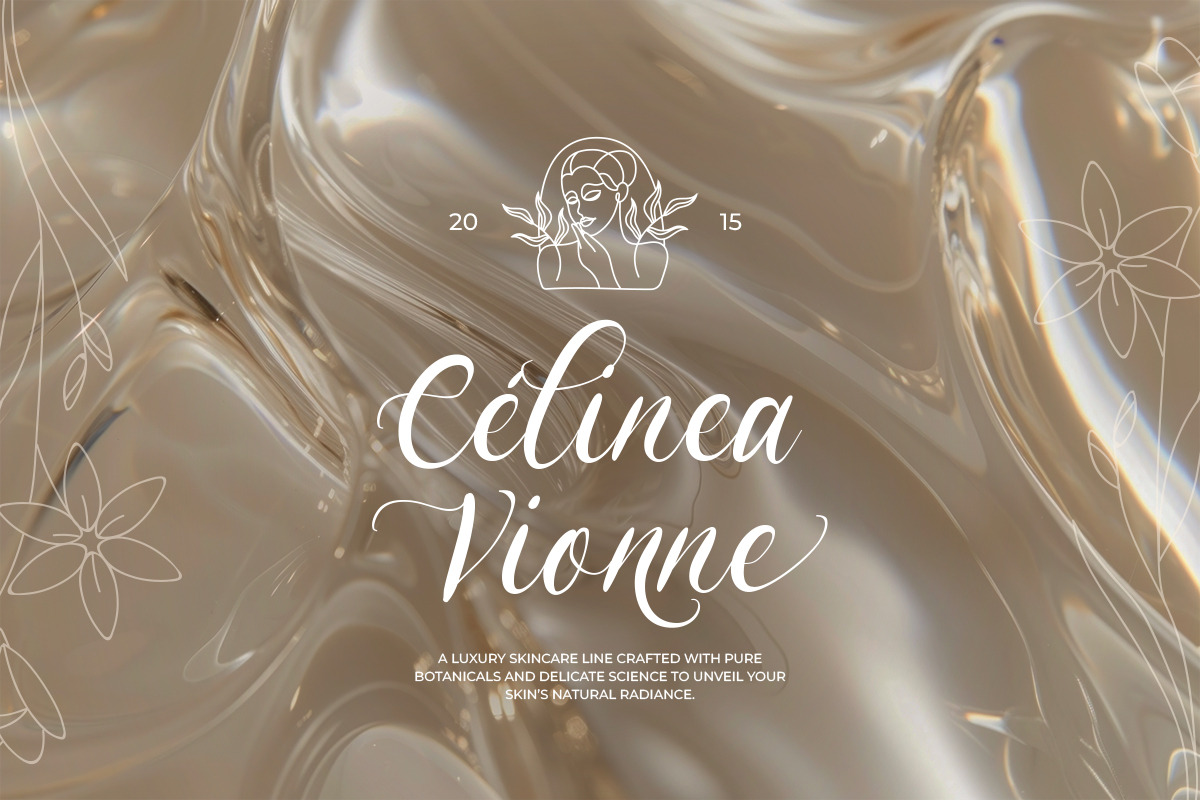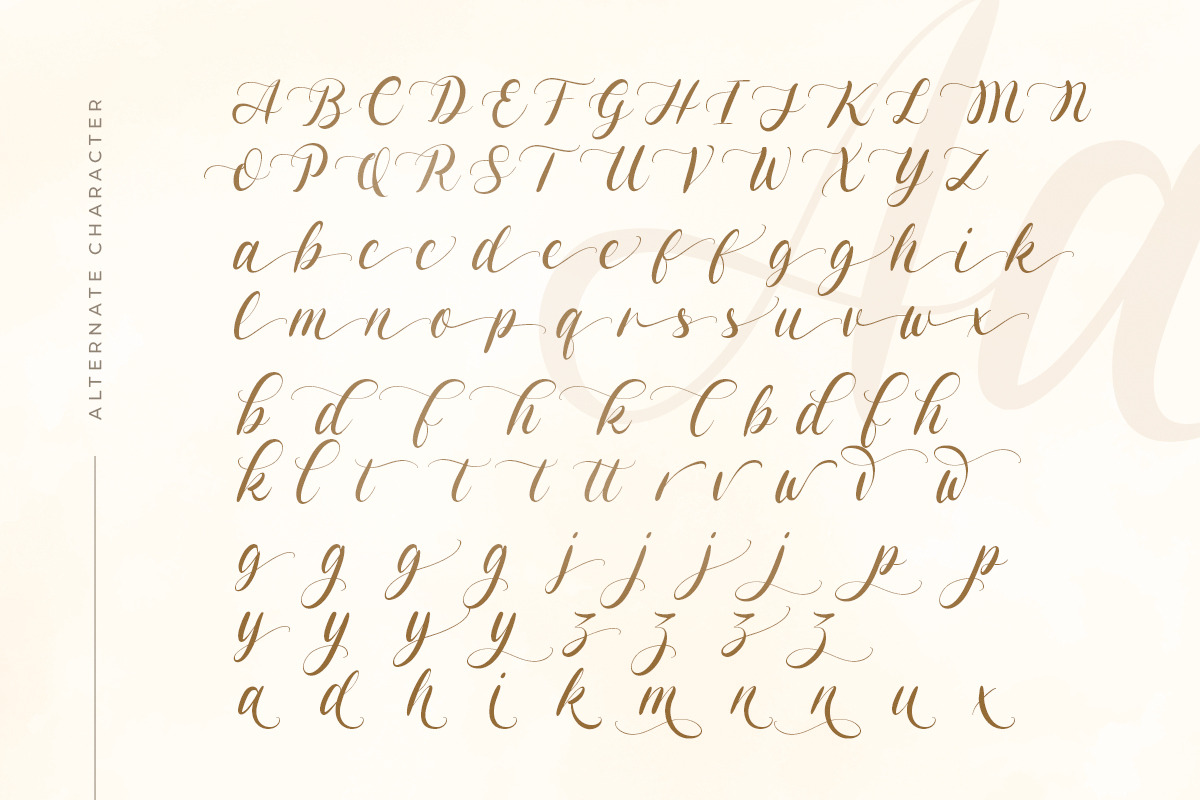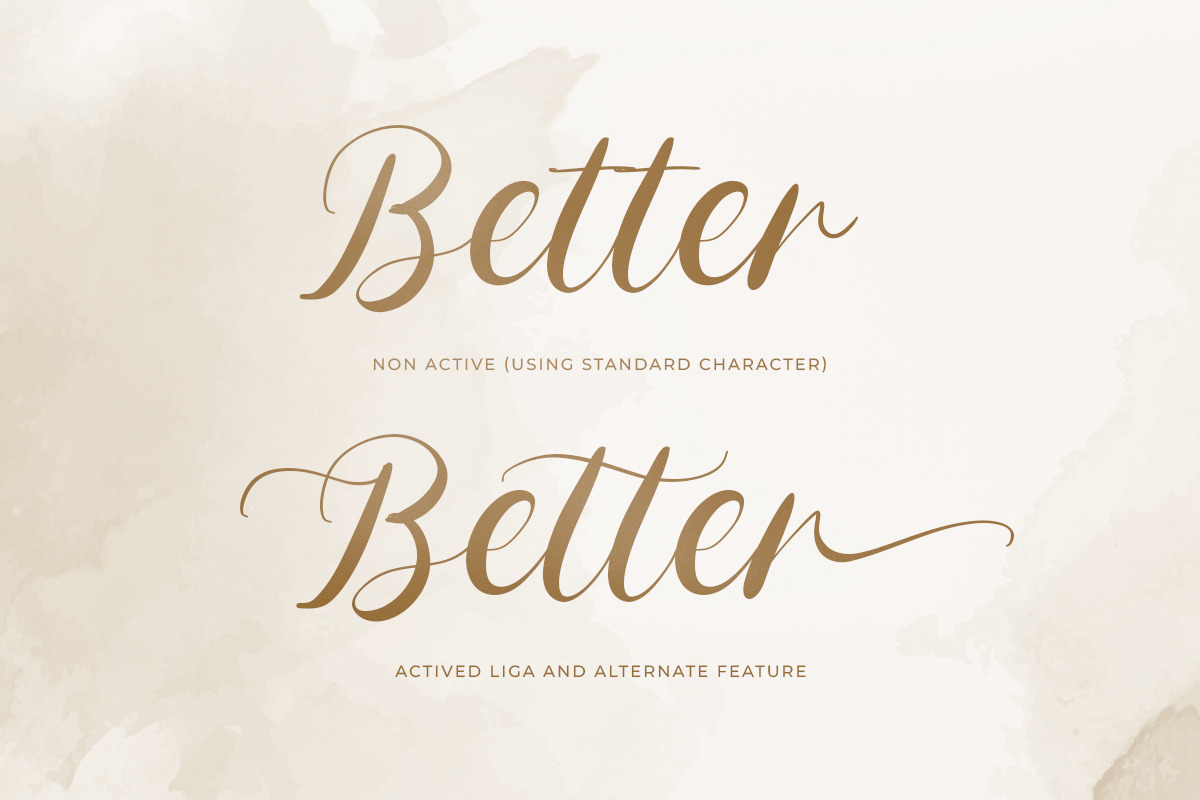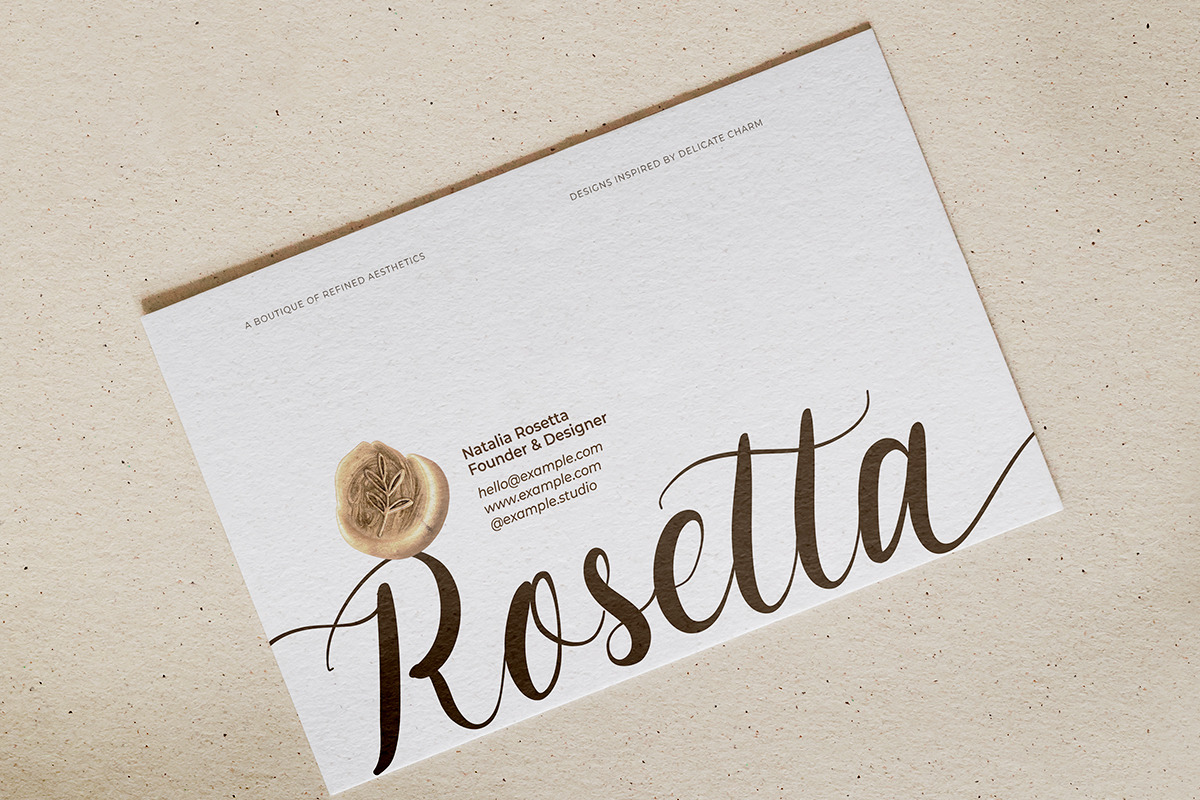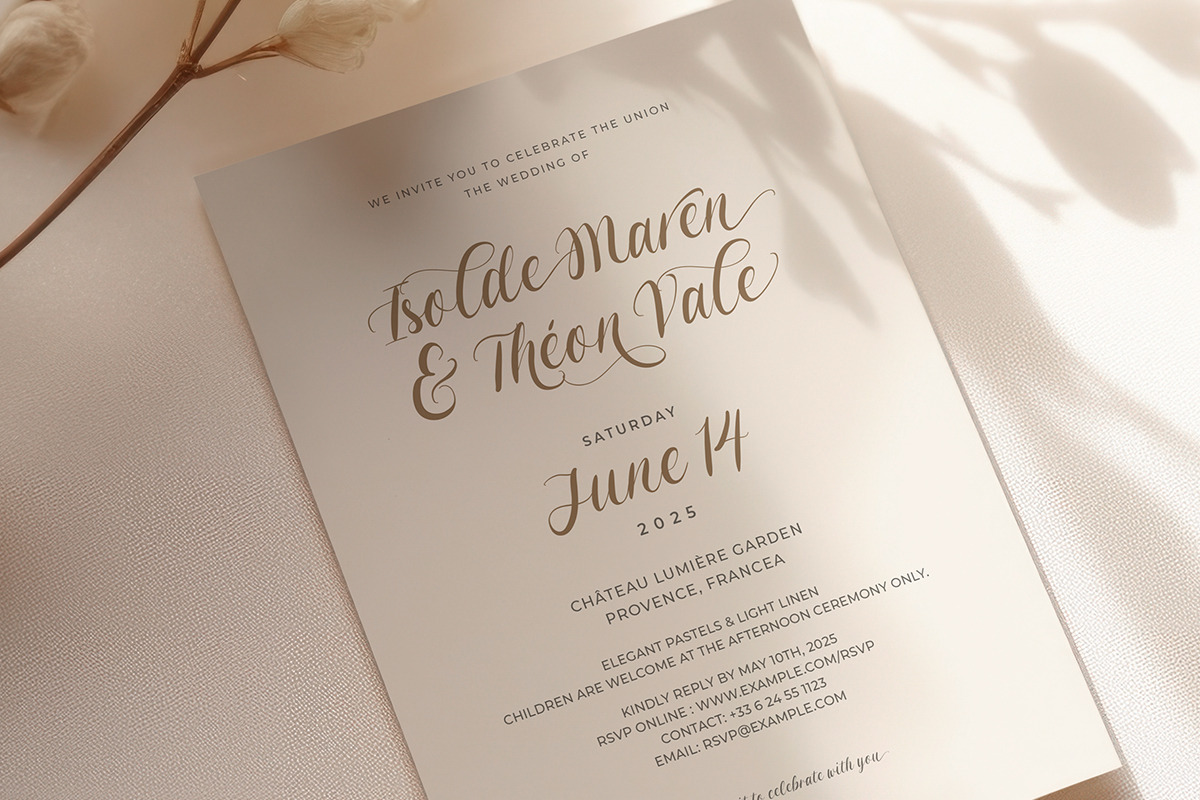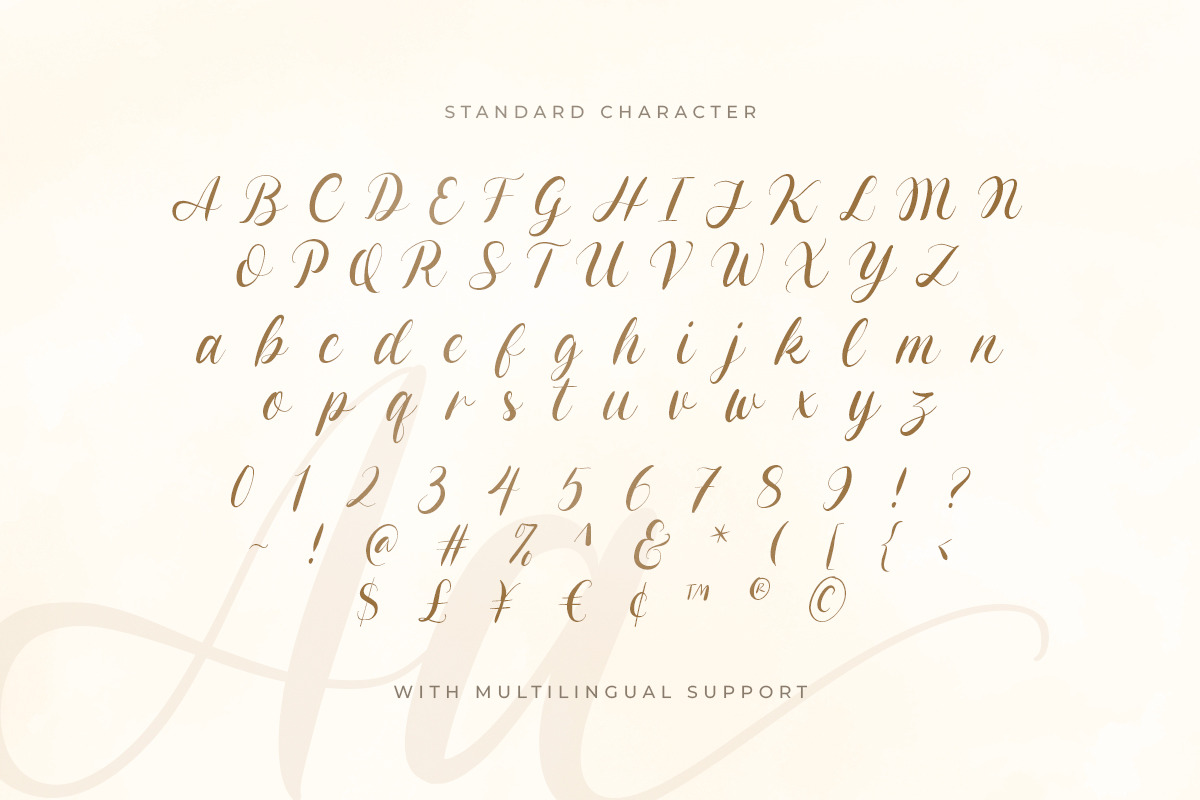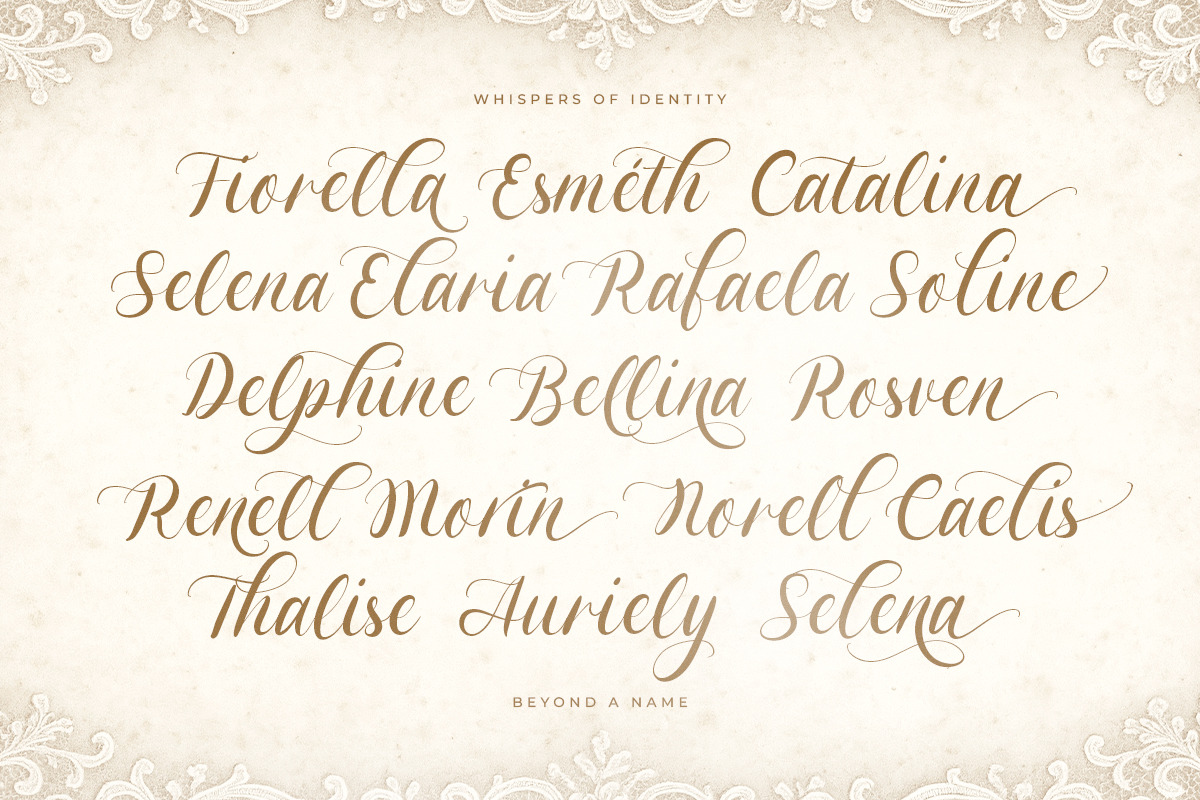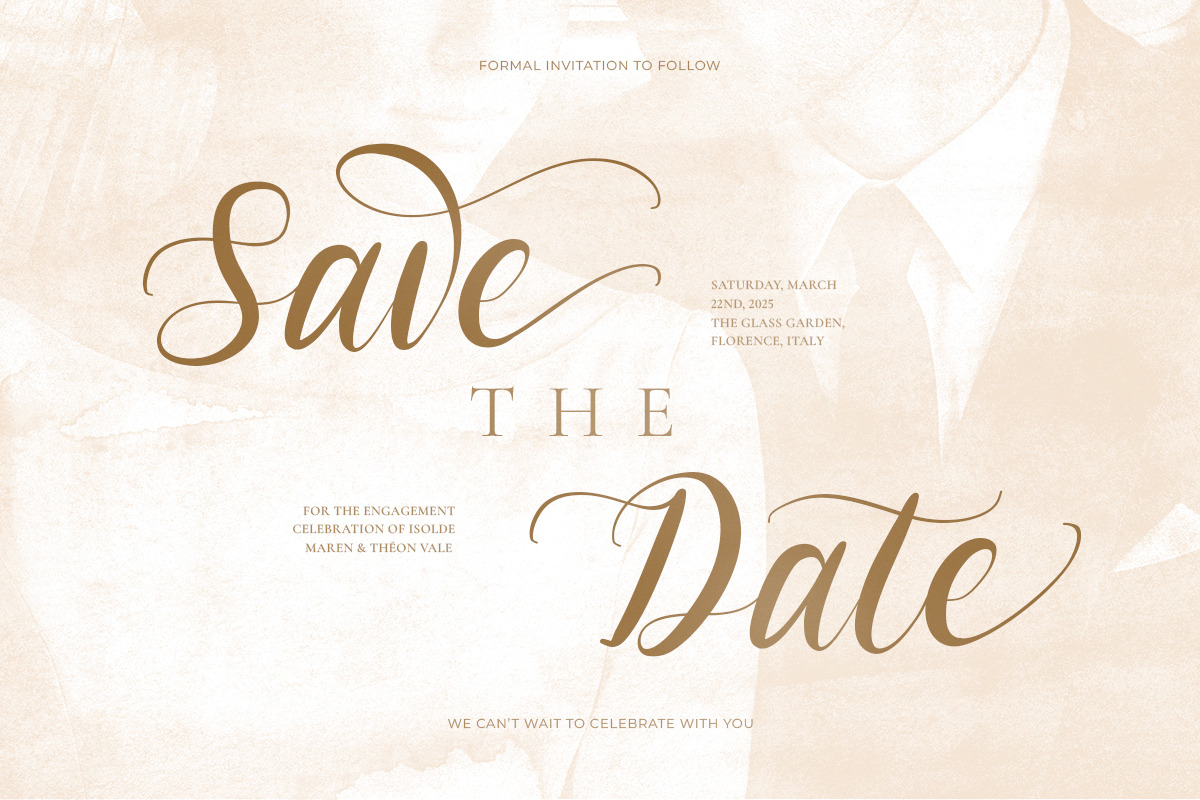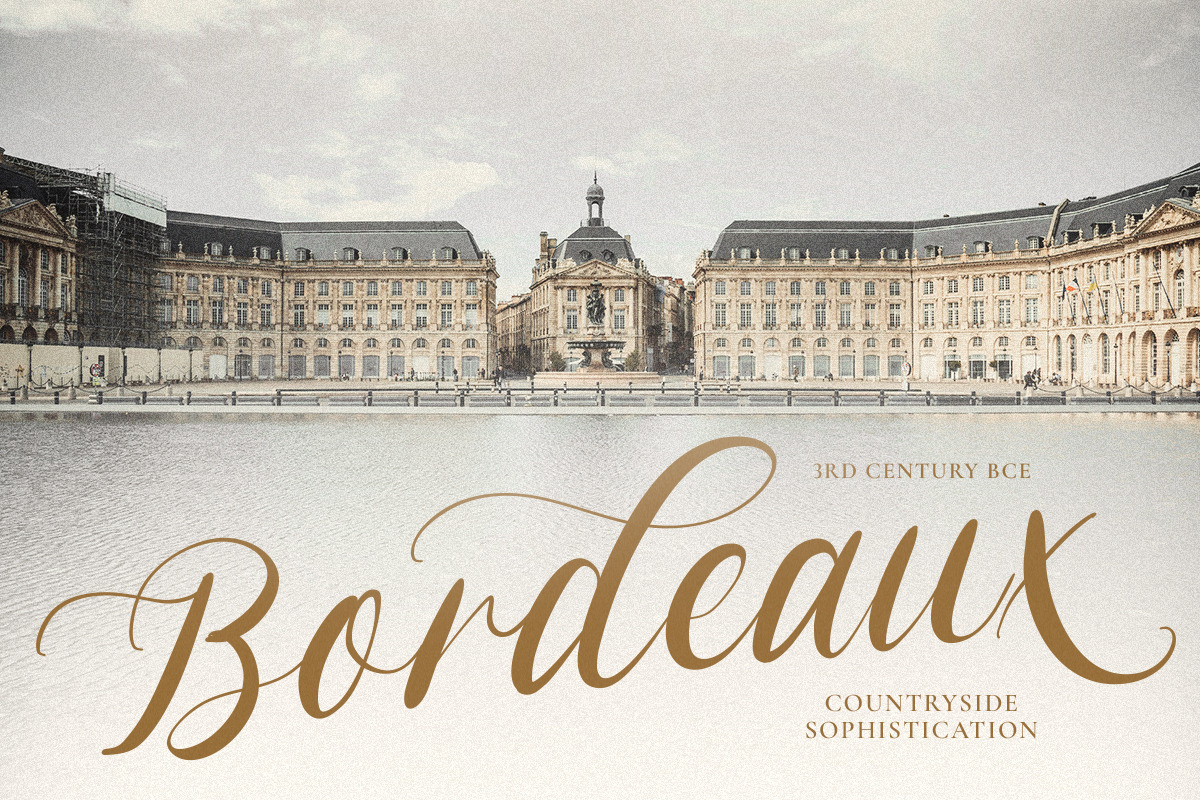
Wedding Trope - Romantic Script
Introducing, Wedding Trope, a romantic script for your wedding!
Wedding Trope is a handwritten brush script with romantic and hand touch vibes. You can use this font for any purposes such as a logo, quotes, and any other graphic that need soft and luxury looks. This font is also suitable for your wedding invitation or any romantic occasions. Wedding Trope comes with many alternates that will make your design even more eccentric. This font also support multi language!